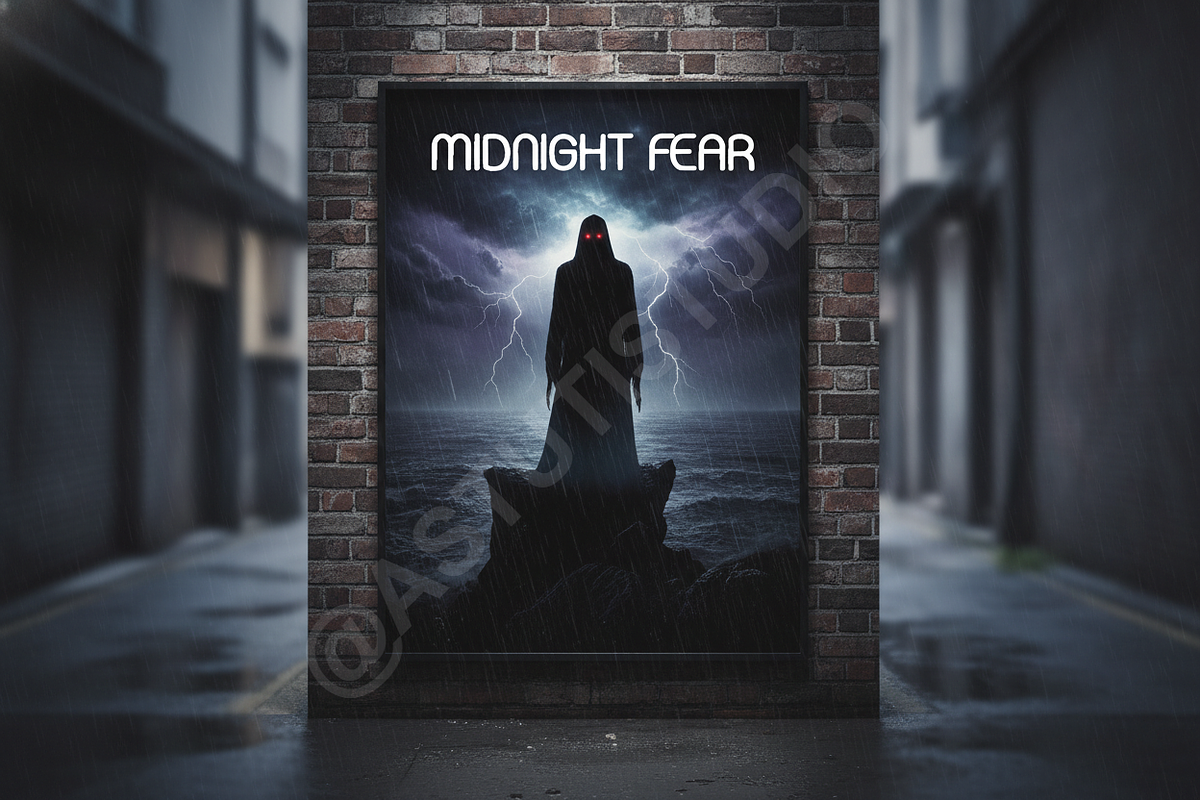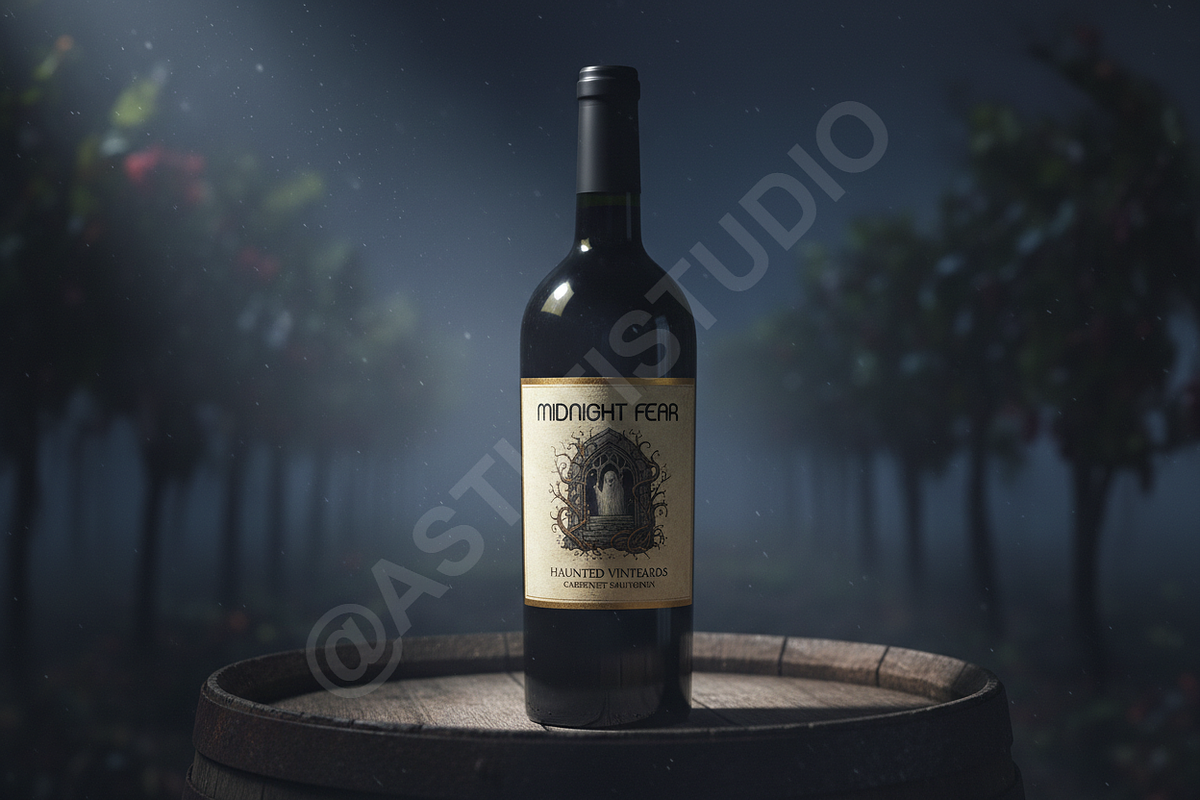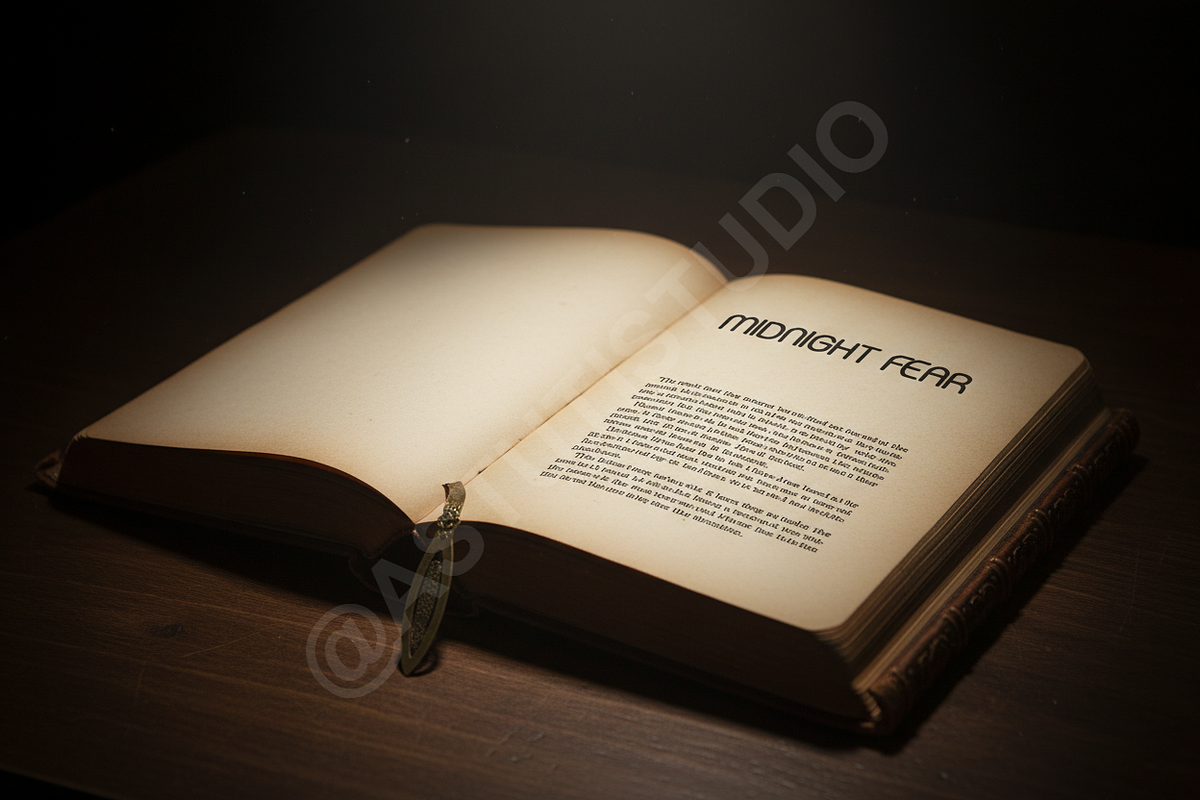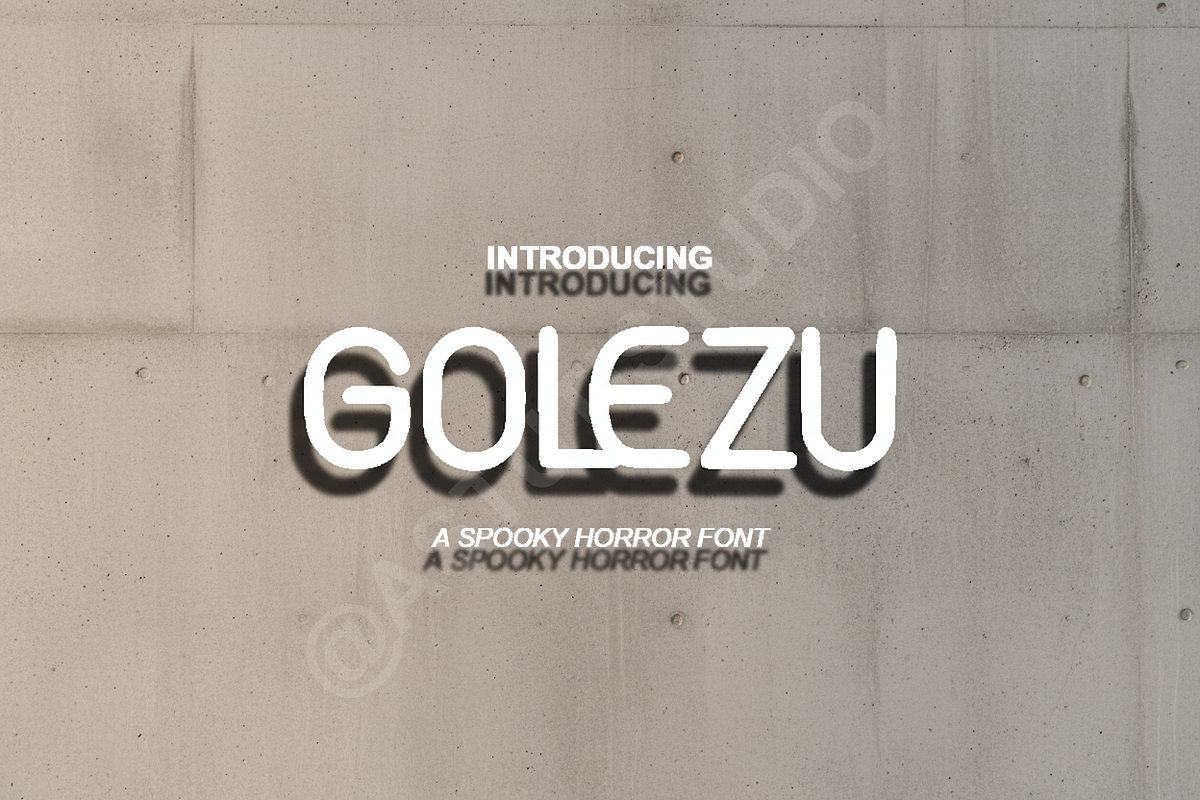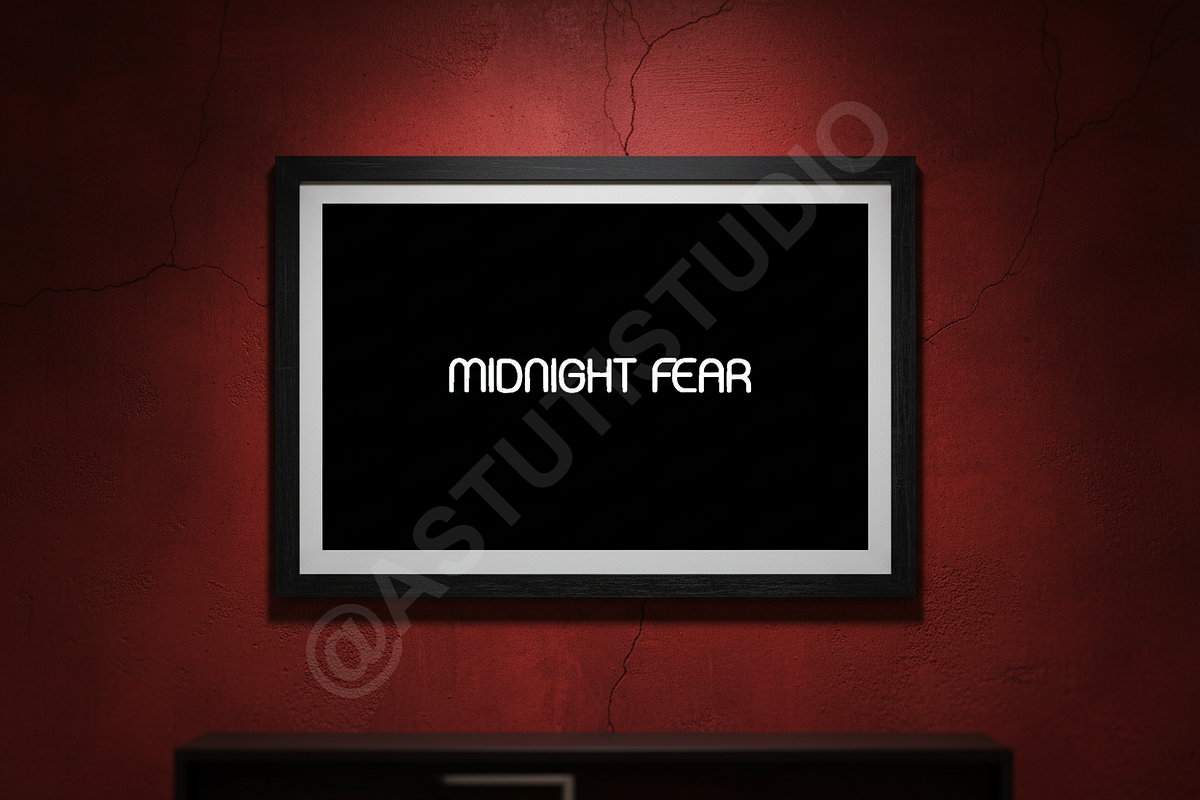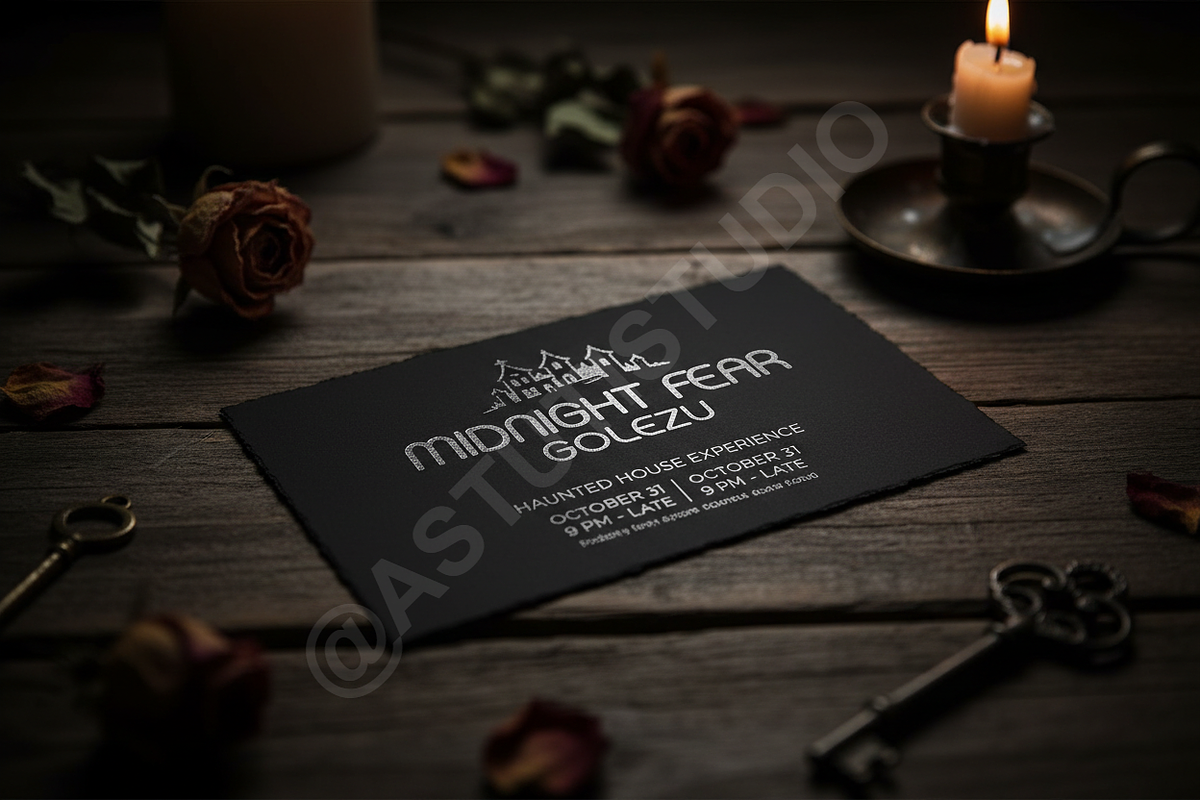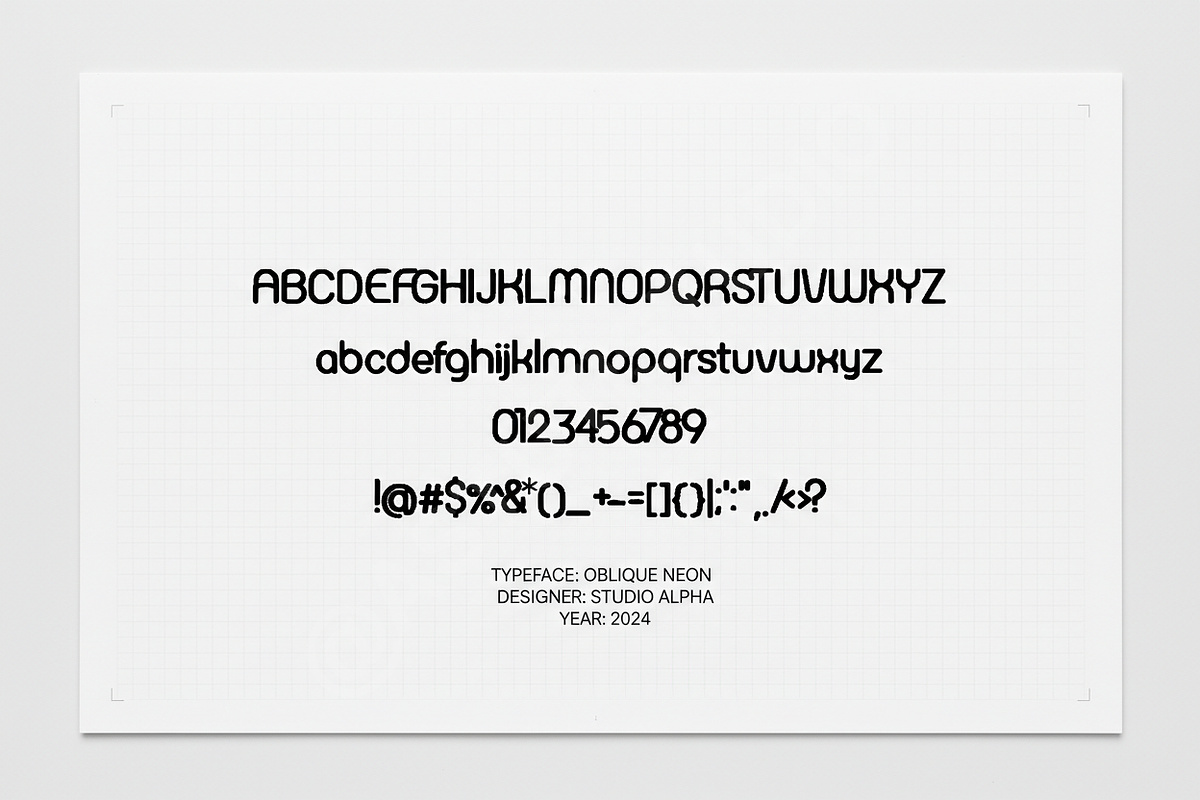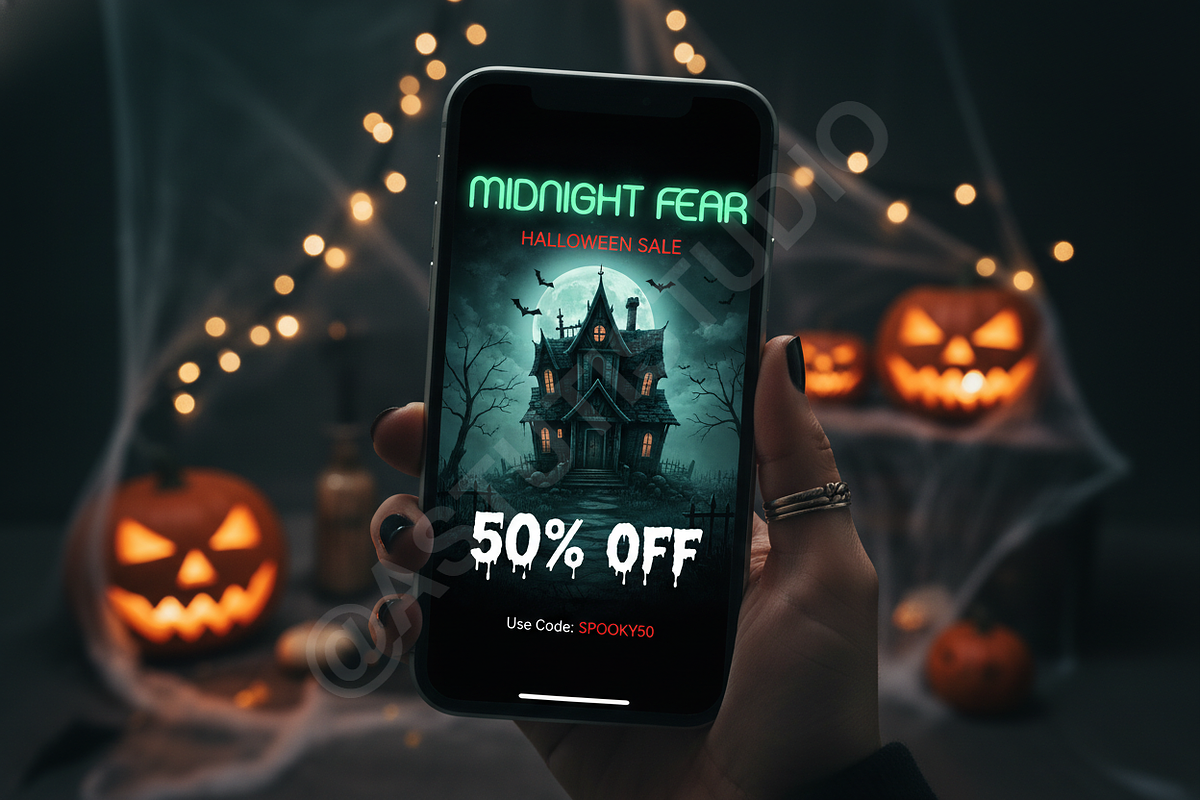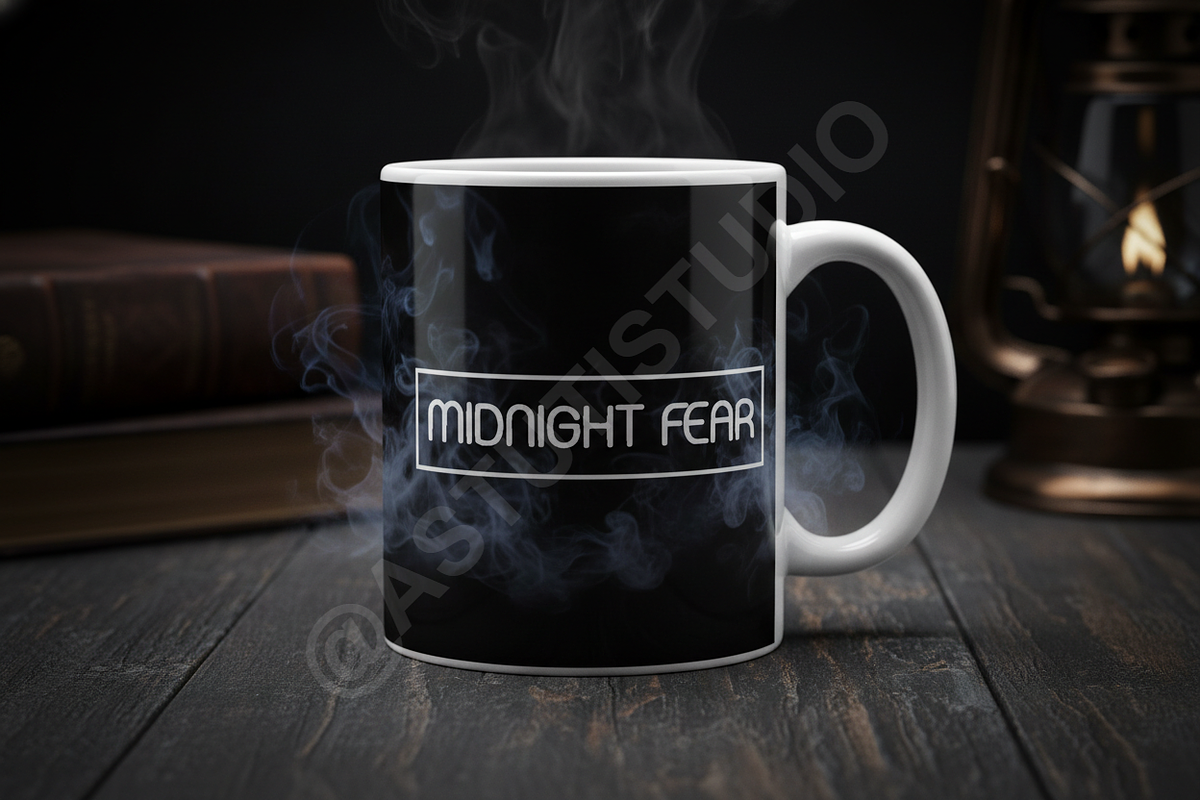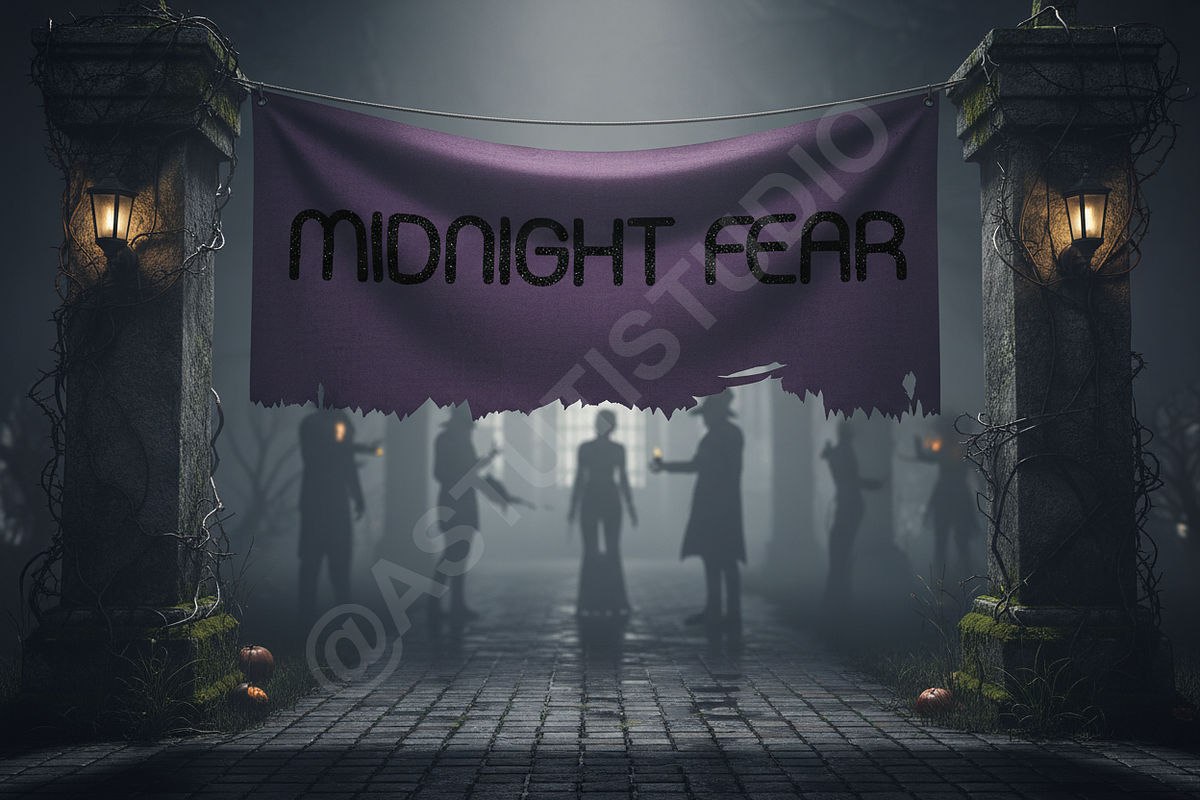
Golezu - Elegant Sans Serif Font
Introducing Golezu, an exquisite typeface meticulously crafted for the discerning designer. Golezu embodies the essence of premium studio quality, making it the perfect choice for luxury branding, sophisticated editorial designs, and high-impact social media campaigns. Its elegant contours and refined proportions are designed to elevate your projects with an unparalleled touch of class.
- Timeless elegance and a refined aesthetic suitable for high-end applications.
- Versatile application ideal for headlines, body text, logos, and packaging.
- Optimized readability across various media and sizes.
- Extensive character set including uppercase, lowercase, numbers, and essential punctuation.
- Multilingual support to cater to diverse global projects.